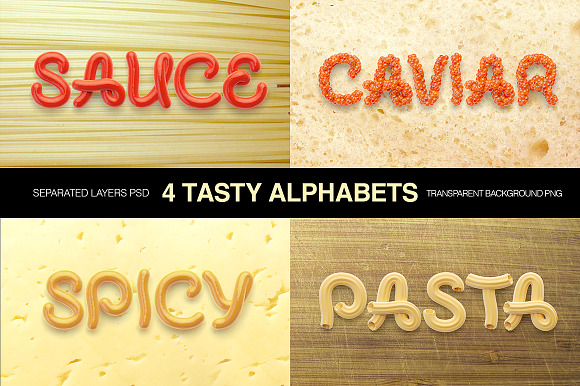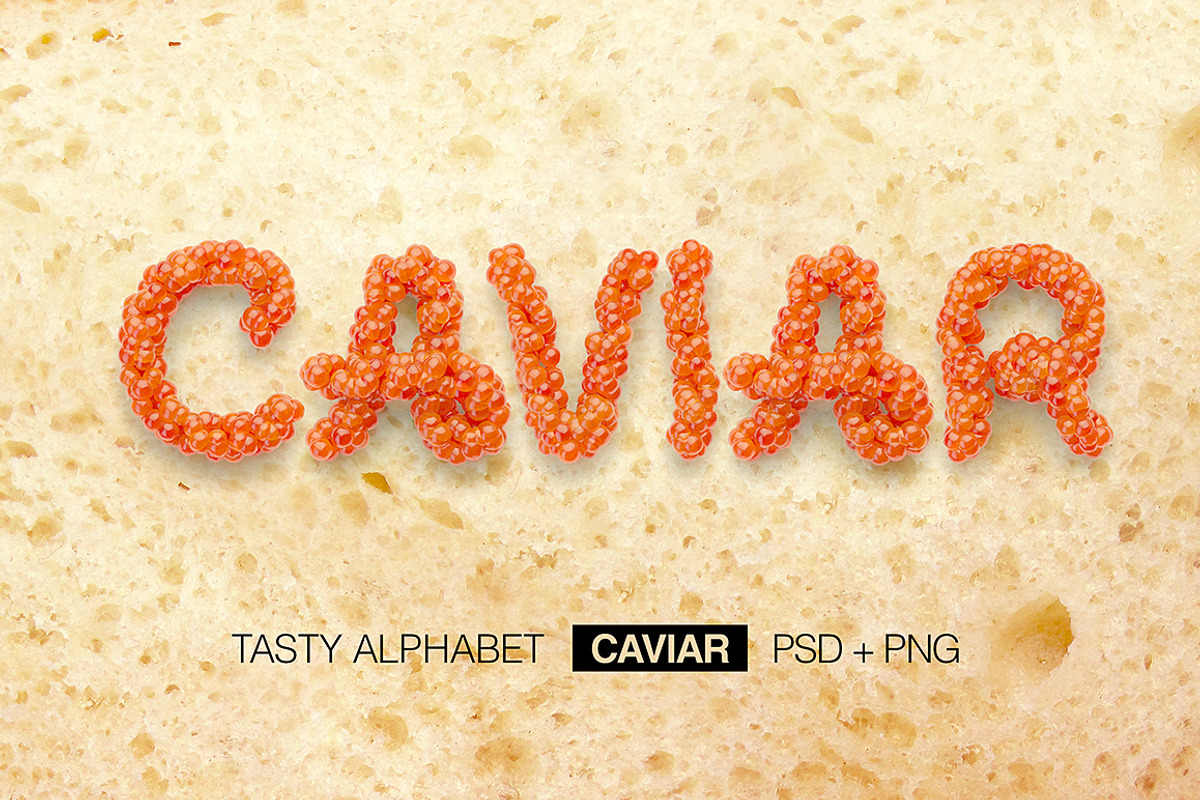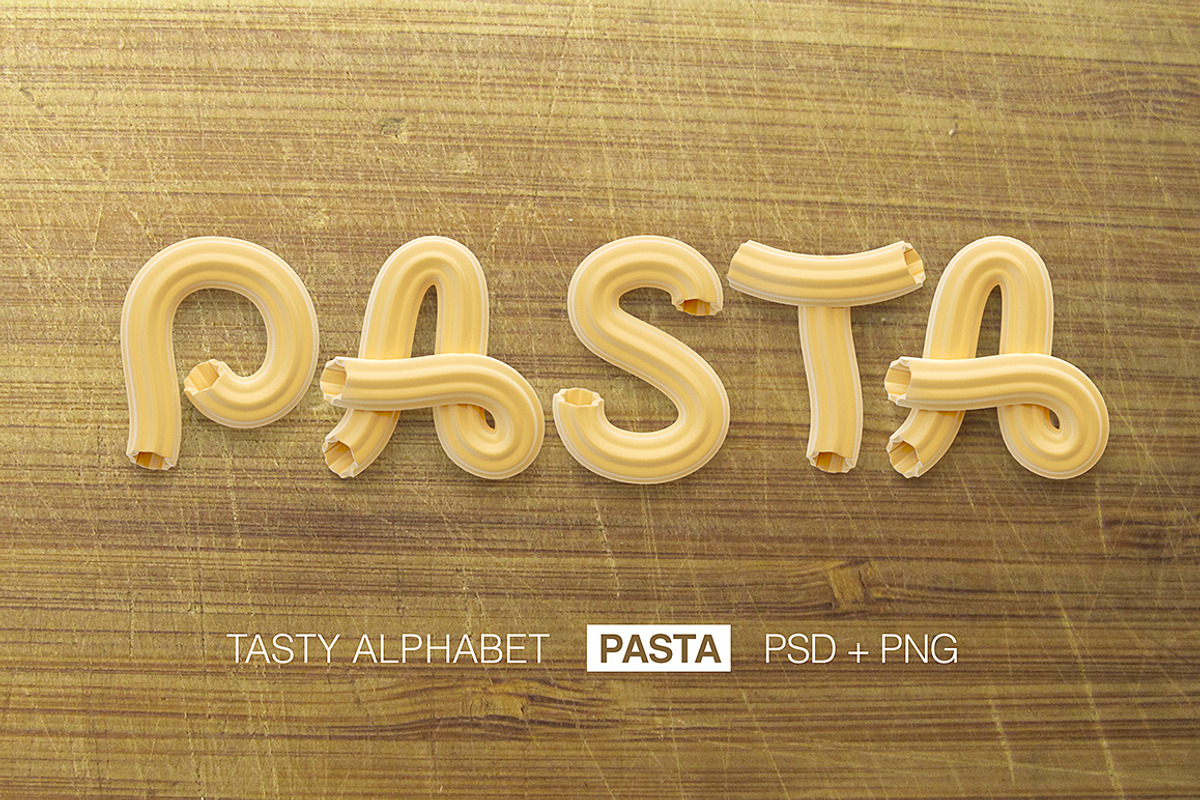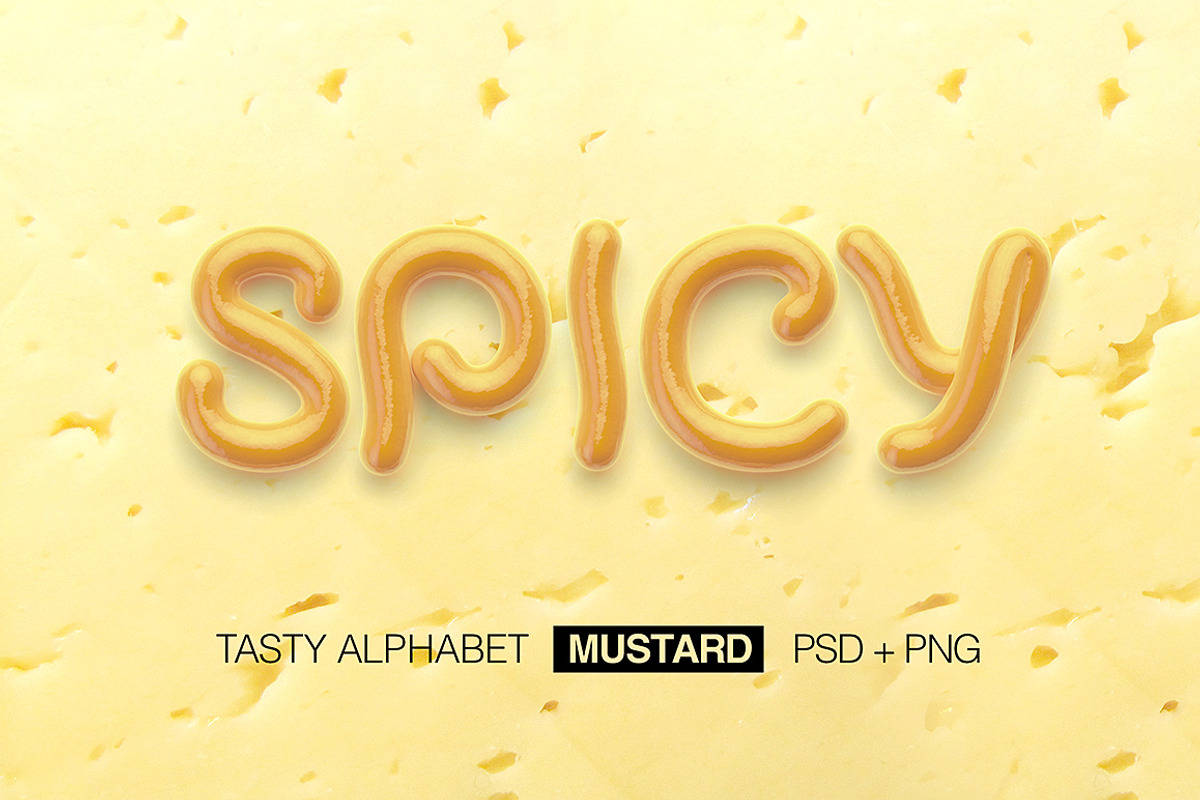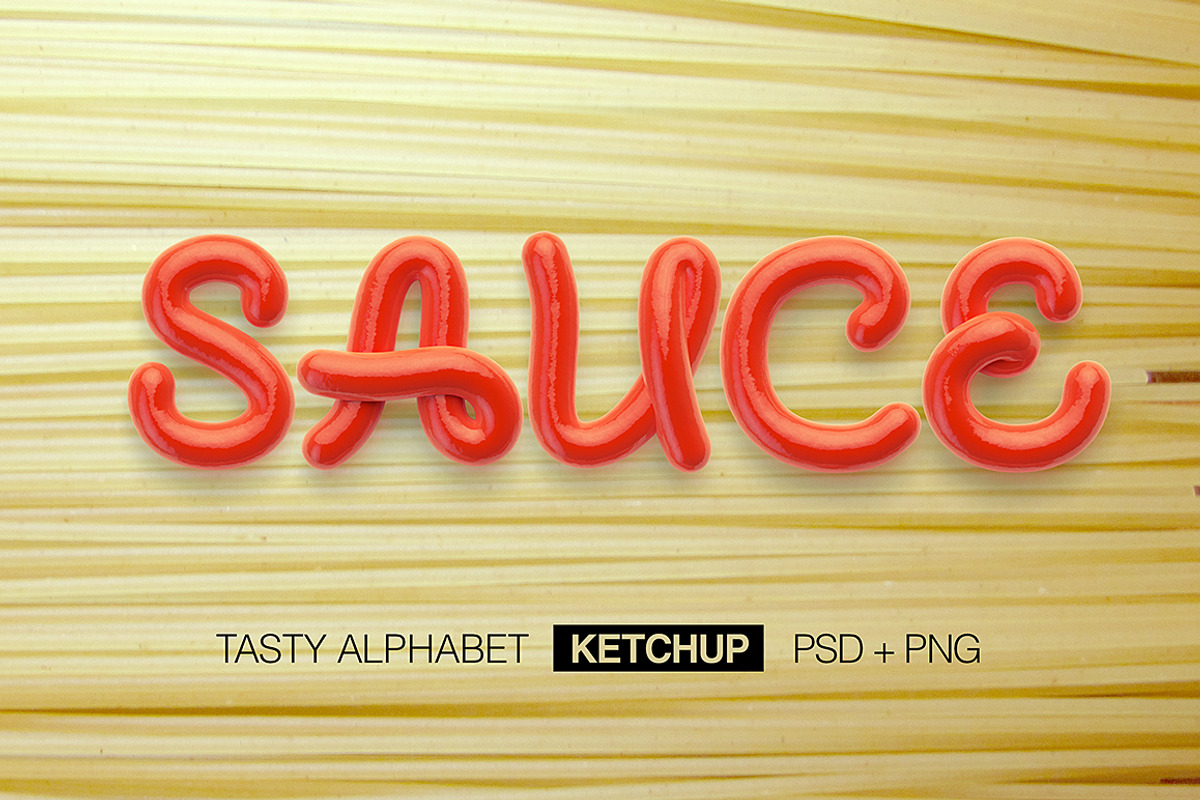
Tasty letters font
Hi! Here is my kit with 4 rendered letters set made of different food stuff (Pasta, ketchup, mustard, red caviar). Each letter file has 1000x1000 pixels resolution.